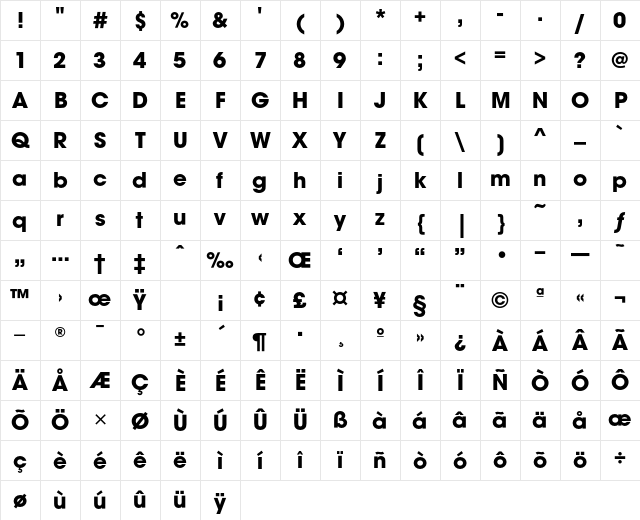
AvantGardeMdITC Bold
AvantGardeMdITC Family
Complete AvantGardeMdITC Bold glyph index. Displaying only characters natively supported by AvantGardeMdITC Bold font.
Design Context for AvantGardeMdITC
AvantGardeMdITC is a composed and adaptable typeface that performs quietly and consistently across a wide range of design contexts. Its bold stroke weight gives it real presence on the page.